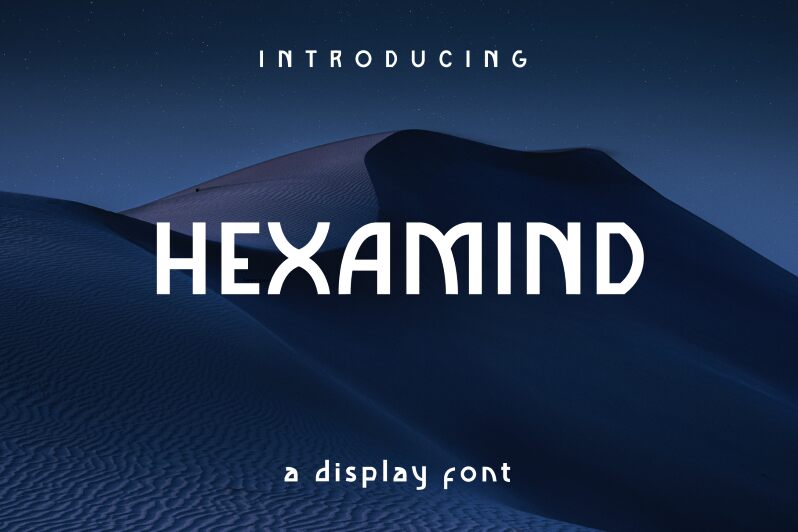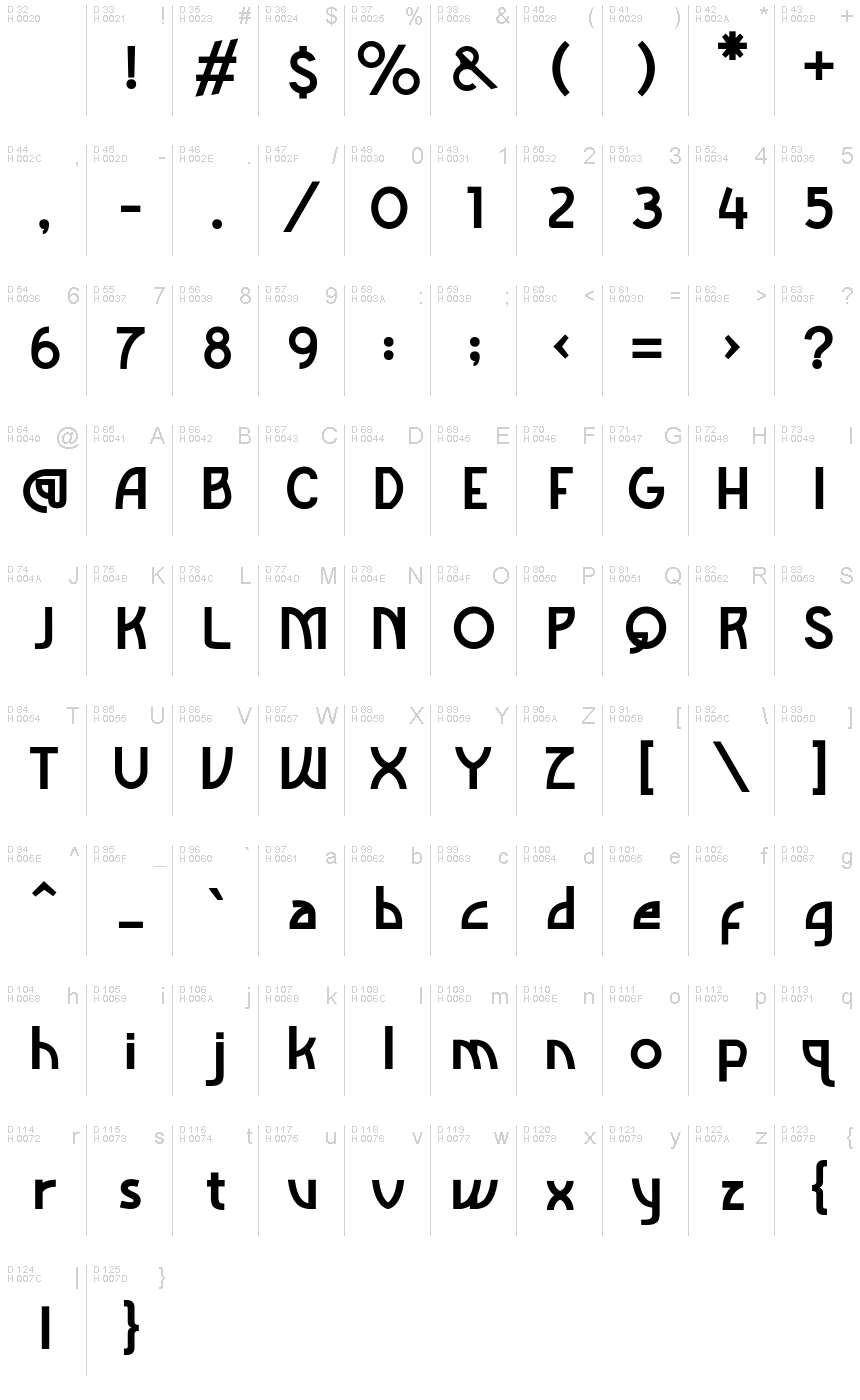
HEXAMIND
Hexamind, a captivating display font crafted by Arliyan Creative, exudes an alluring blend of boldness and modernity. With its distinctive letterforms and striking presence, this font commands attention, evoking a sense of sophistication and professionalism. The seamless interplay of sharp angles and fluid curves creates a captivating visual rhythm, making Hexamind a standout choice for any design-driven endeavor.
Hexamind's versatility shines through, lending itself effortlessly to a diverse array of applications. Its bold, eye-catching aesthetic makes it an excellent selection for headlines, logos, and impactful typography-driven designs. Whether you're crafting a sleek and modern brand identity, curating an engaging social media campaign, or designing a visually striking editorial layout, Hexamind's distinctive flair will elevate your project to new heights.